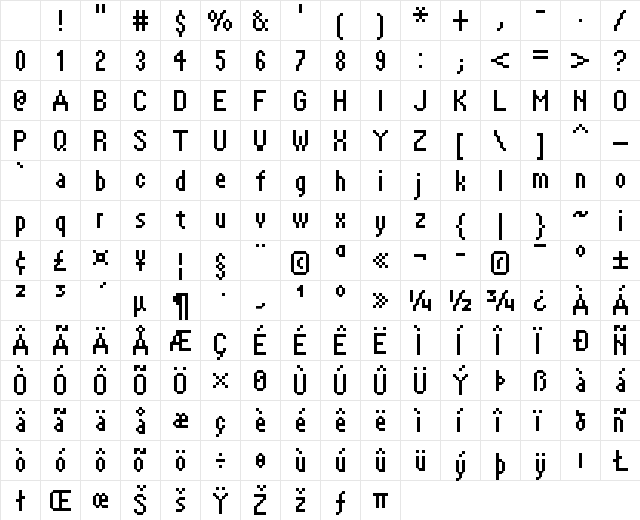
Complete FFF Lighthouse Regular glyph index. Displaying only characters natively supported by FFF Lighthouse Regular font.
FFF Lighthouse is a composed and adaptable typeface that performs quietly and consistently across a wide range of design contexts. Its slender proportions lend an understated elegance to any composition.